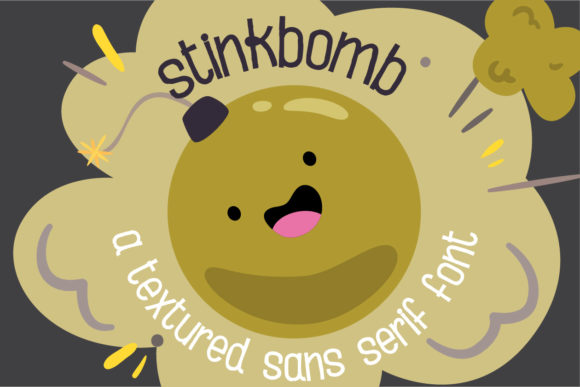
Welcome to the world of PN Stinkbomb Font, where simplicity and elegance unite to create a font that speaks volumes. This minimal sans serif masterpiece is brought to you by Illustration Ink, a name synonymous with excellence in the world of typography. Experience the charm of a font that will lovingly embrace your creative endeavors, no matter the occasion.
Stinkbomb, with its clean and uncluttered lines, possesses an uncanny ability to elevate your designs with a touch of sophistication. Its charm lies in its versatility, effortlessly blending with a myriad of styles and themes. Be it a playful invitation, a formal business presentation, or a whimsical poster, Stinkbomb molds itself seamlessly into your creative vision.
Imagine your words dancing across the page, infused with the playful spirit of Stinkbomb. Whether you're a seasoned designer seeking a timeless font or a novice just starting your creative journey, Stinkbomb becomes your trusted companion, elevating your projects with its understated grace.